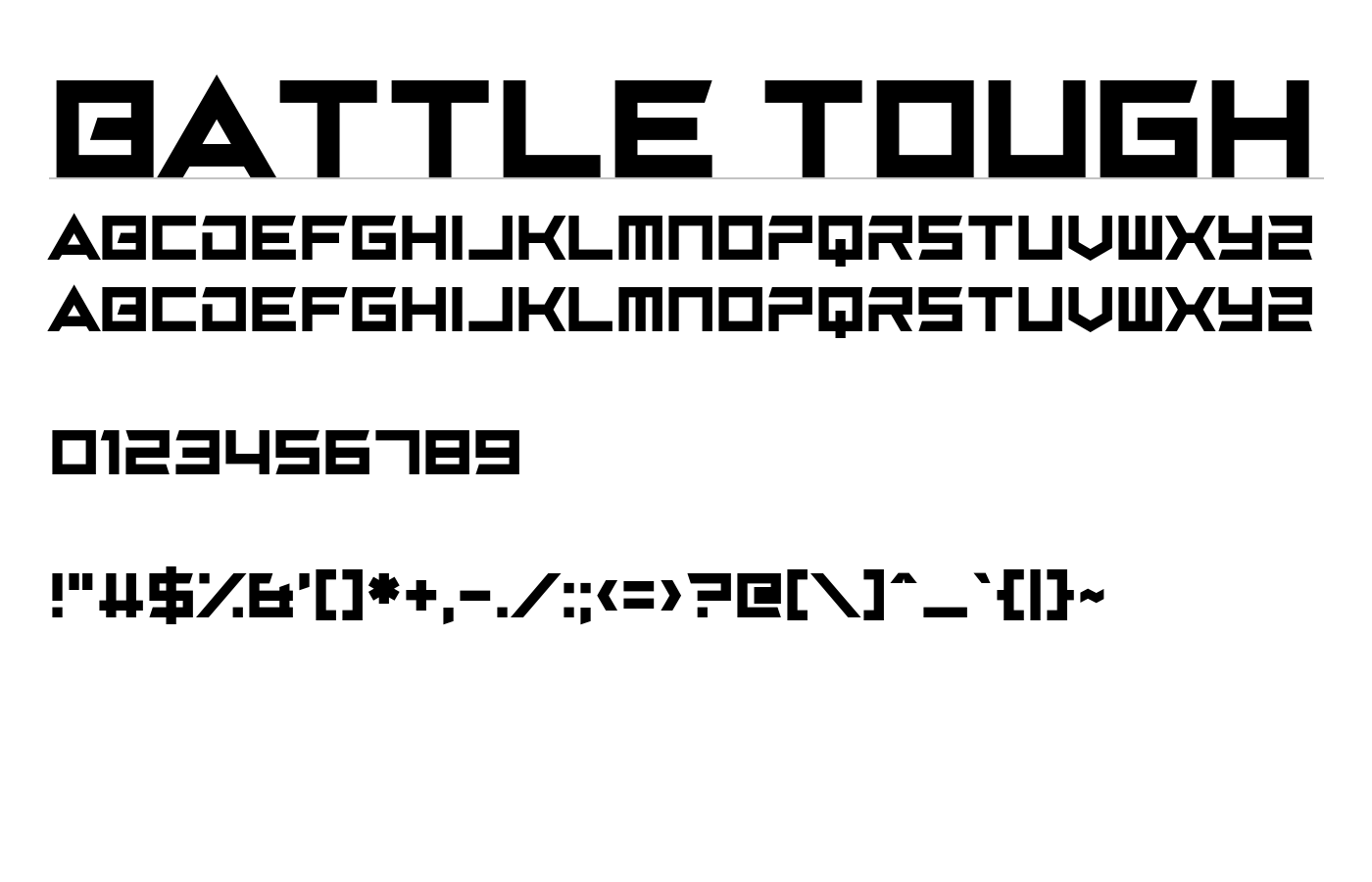
Battle Tough is a bold, geometric sans serif font with a strong, angular design that conveys power and resilience. Its blocky letterforms and sharp corners create a futuristic, industrial feel, making it ideal for use in posters, logos, and branding that needs a tough, modern edge. This font works best in display settings where its impactful personality can stand out.
Battle Tough Font
About Battle Tough Font
| Font family | Battle Tough Font |
| Designer | Allison J. James |